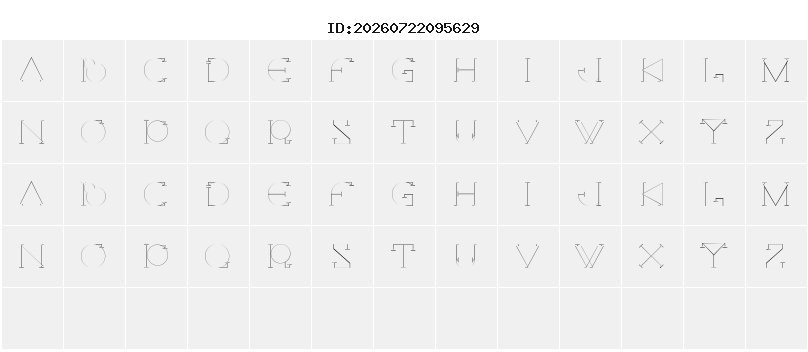
• Font Name: Hera
About Hera.ttf
Hera.ttf is a modern, elegant sans-serif font designed for ultimate readability and visual harmony. Perfect for branding, headlines, web design, and print materials.